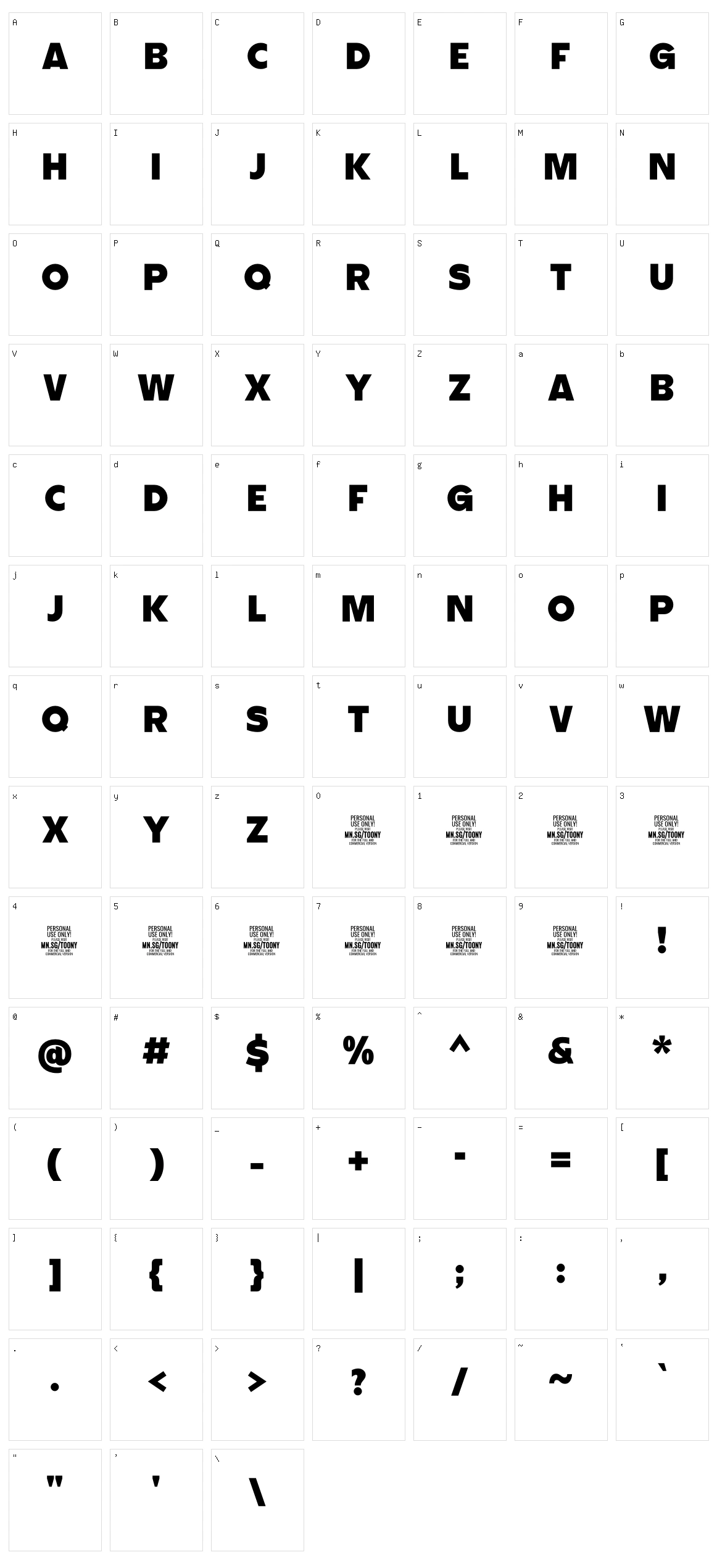
Toony Sans stands as a modern interpretation of classic typography. A nod to beloved animations, its crisp, sans-serif form captures an essence of professionalism with just a touch of nostalgic charm.
Toony Sans presents a clean, streamlined look, perfect for projects requiring clarity and elegance.
Its sharp edges and precise design give it a contemporary feel, yet there's an undeniable warmth that resonates with every character.
Behind Toony Sans is the visionary Mans Greback. He doesn't merely design fonts; he crafts narratives in typography. Each typeface, including Toony Sans, bears witness to Greback's dedication to both form and function, resulting in fonts that not only look impeccable but perform flawlessly in any setting.